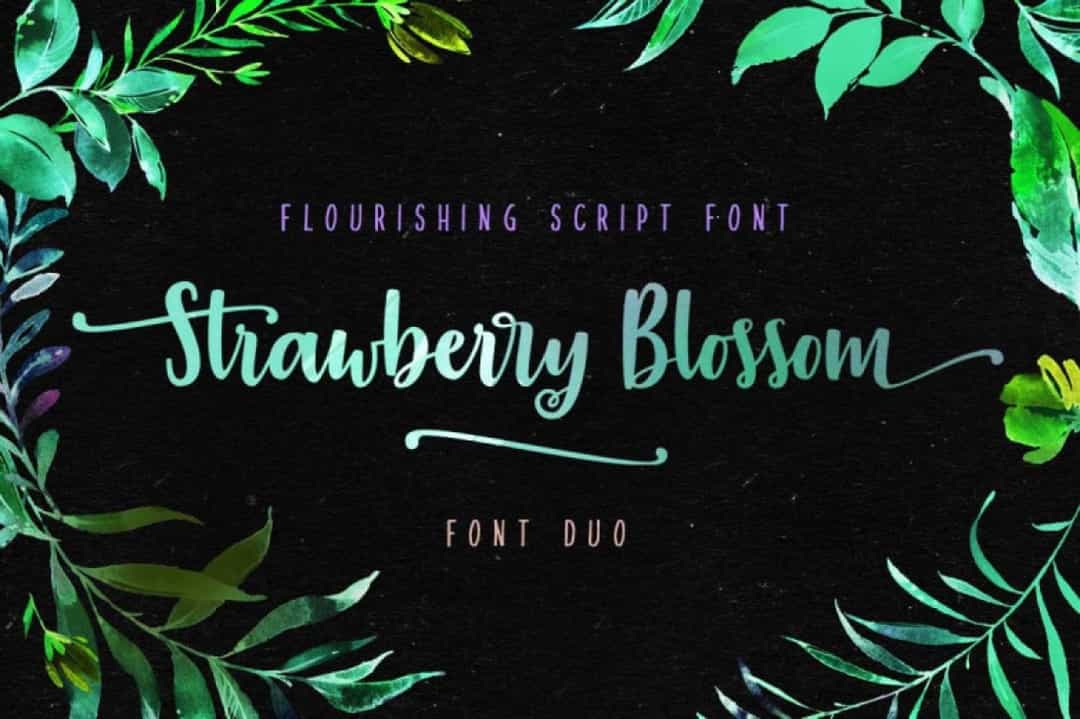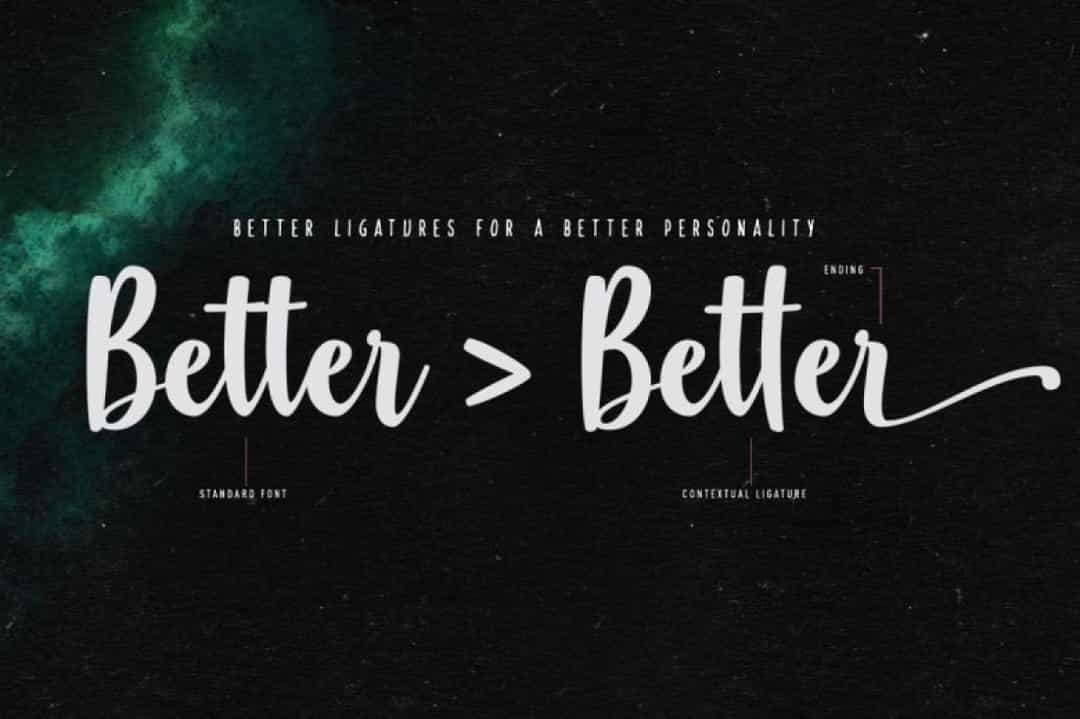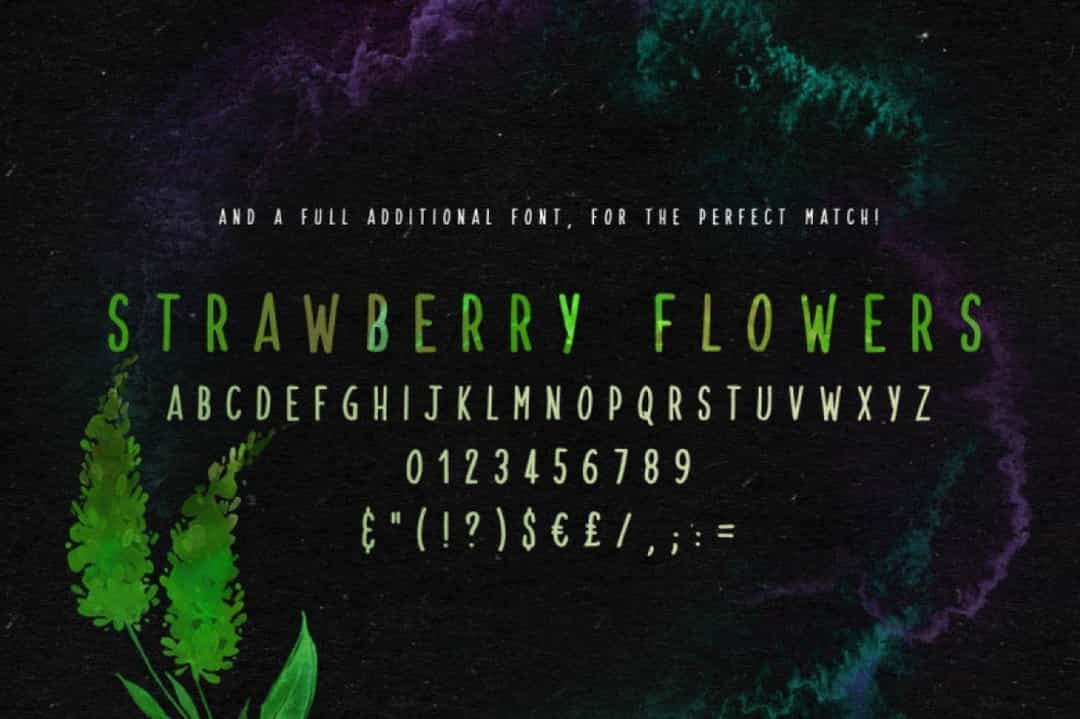
Discover Strawberry Blossom Font Free, part of the Calligraphy collection—a versatile and unique font perfect for adding a personal touch to your projects. Download it for free and enjoy crafting designs with style, from invitations to social media posts. This font is available exclusively for personal use, giving you the freedom to create without limits. Unlock your creativity with Strawberry Blossom Font Free today!
The Strawberry Blossom Font is for the creation of new typefaces and was uploaded to SterlingType by its author StereoType. As for its companion fonts, this peculiar and playful script font offers upper and lower case characters with stylistic alternates; for its commercial types, the package also contains an enormous array of other fonts.